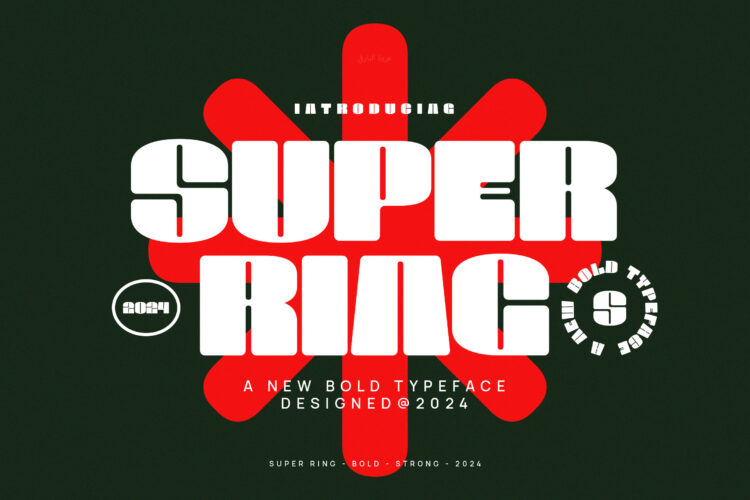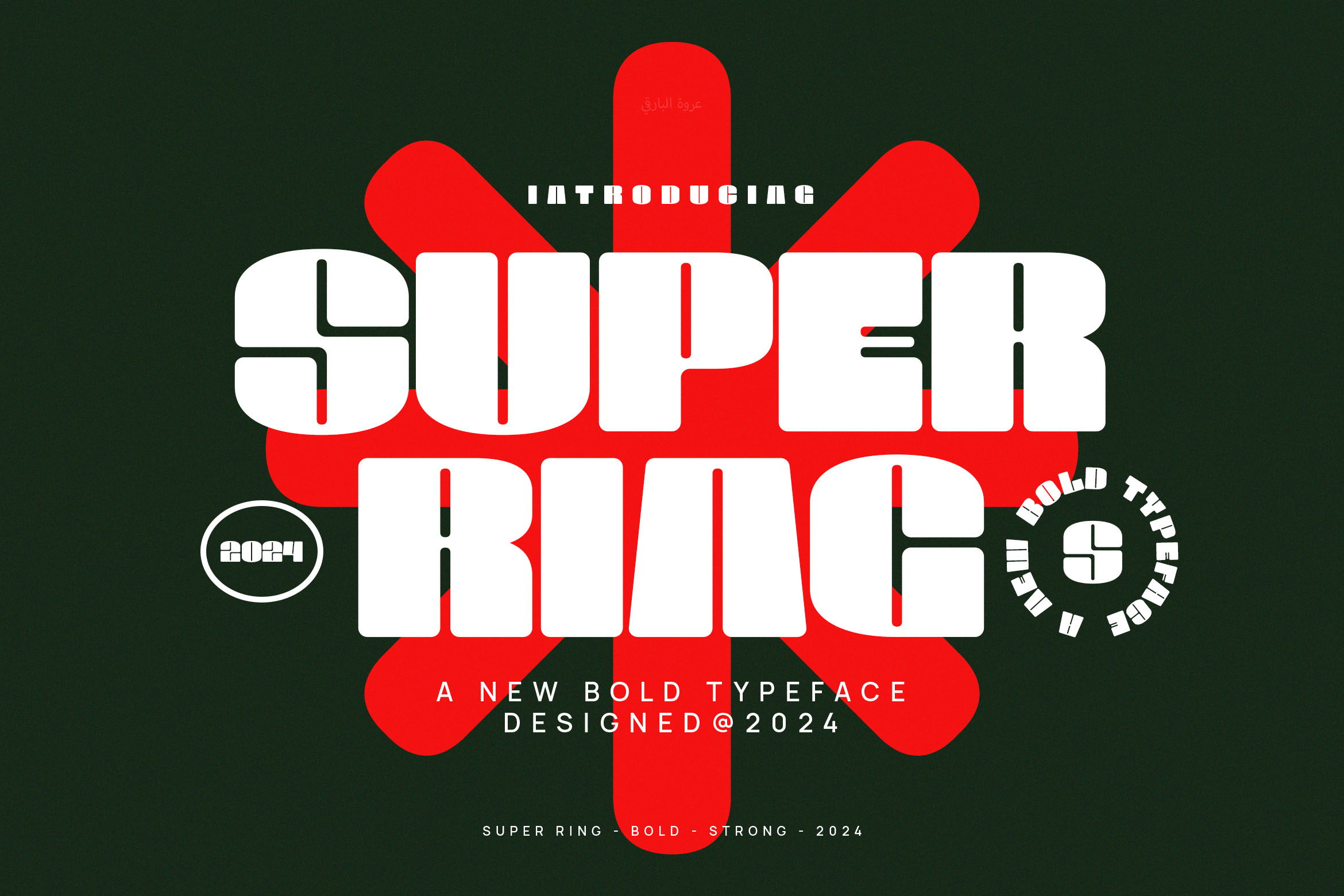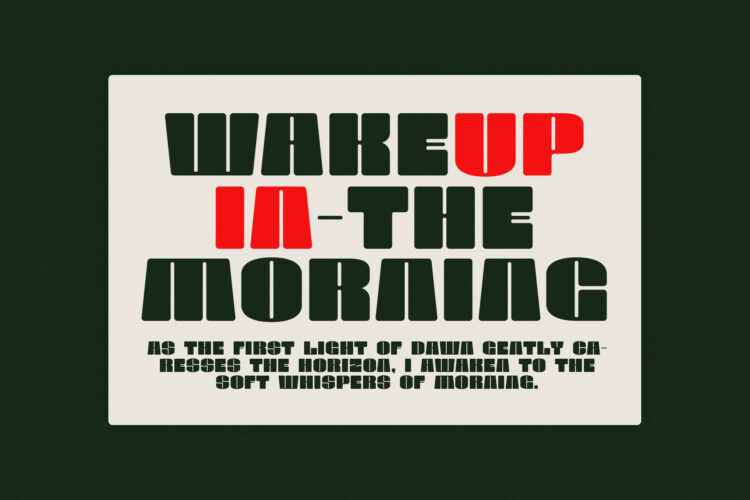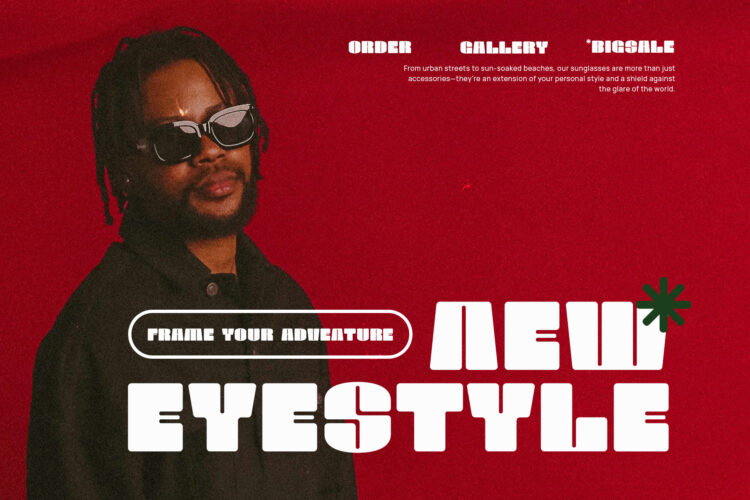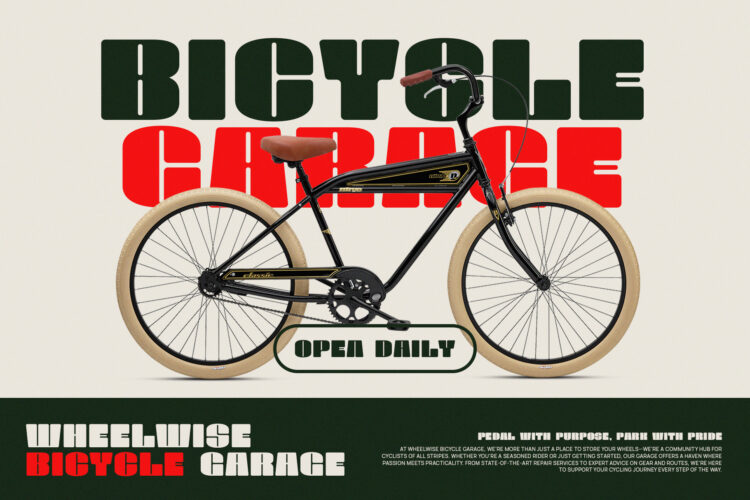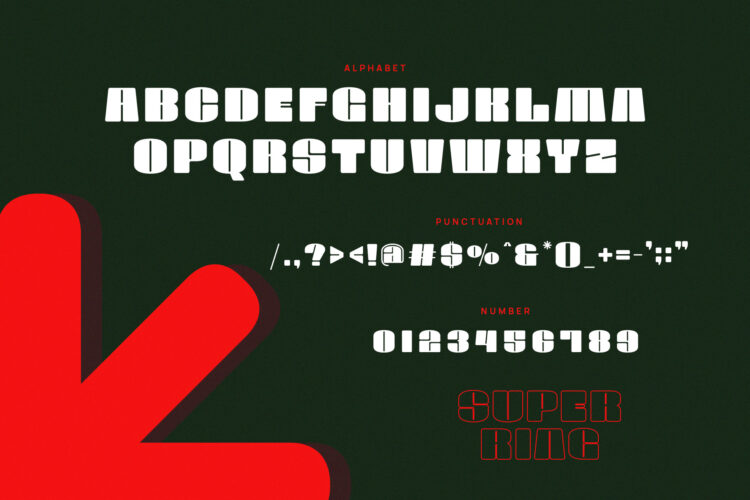
Introducing Super Ring – Modern Display Bold Sans.
Super Ring is a modern and simple font, best used as a display for headings, logos, branding, magazines, product packaging and invitations.